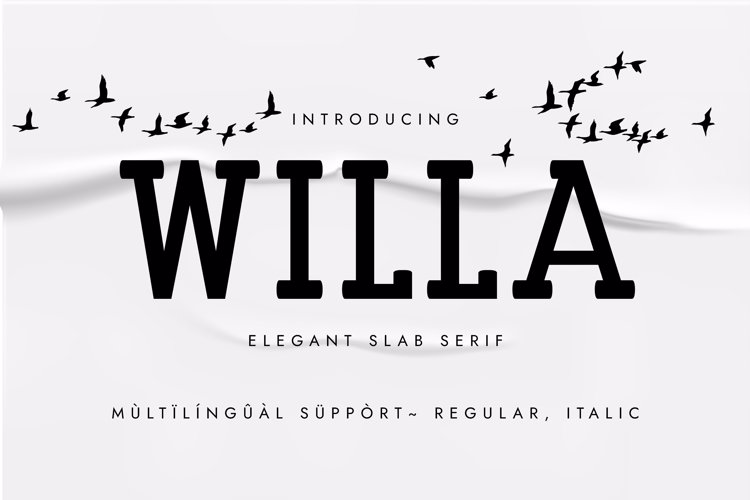
WILLA Font
๐จ Font Name: Willa by Minimalist Art Studio
๐จ Font Description: Willa is an elegant rounded slab serif with multilingual supportโperfect for poetic branding, editorial charm, and nature-inspired packaging.
โ Complete Latin set + multilingual diacritics
โ Alternates, stylistic sets & ligatures
โ Numbers, small caps, and extended punctuation
โ Bonus italics and family styles